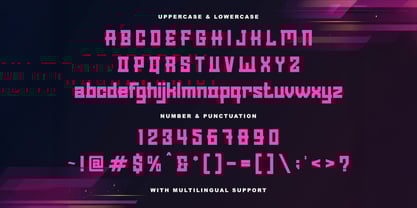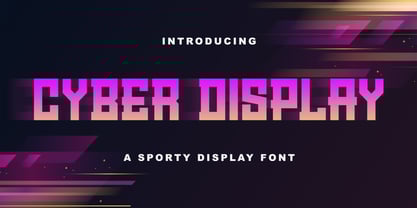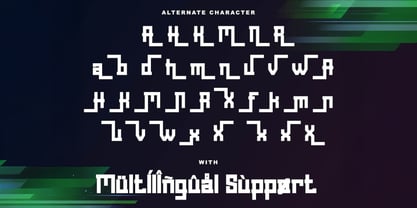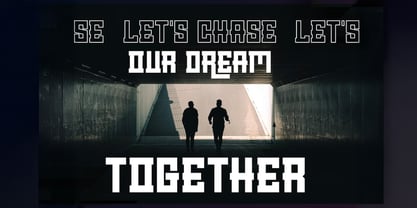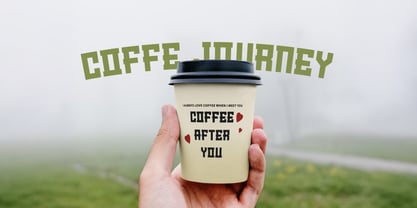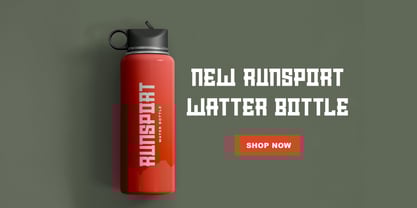
Cyber Display
by Stringlabs Creative Studio
The Cyber Display Font Family was designed by Virgiawan Listanto and published by Stringlabs Creative Studio. Cyber Display contains 1 styles. More about this family
Cyber Display is a modern sporty font with a futuristic edge. It's designed to capture the essence of speed, technology, and dynamic movement. With its clean lines, bold shapes, and sharp angles, this font is the perfect choice for high-impact projects. Whether you're creating a logo for a tech startup, a gaming title, or branding for a fitness company, Cyber Display brings a sleek, energetic, and contemporary feel that's ready to stand out in the digital age.
Designers: Virgiawan Listanto
Current Foundry: Stringlabs Creative Studio